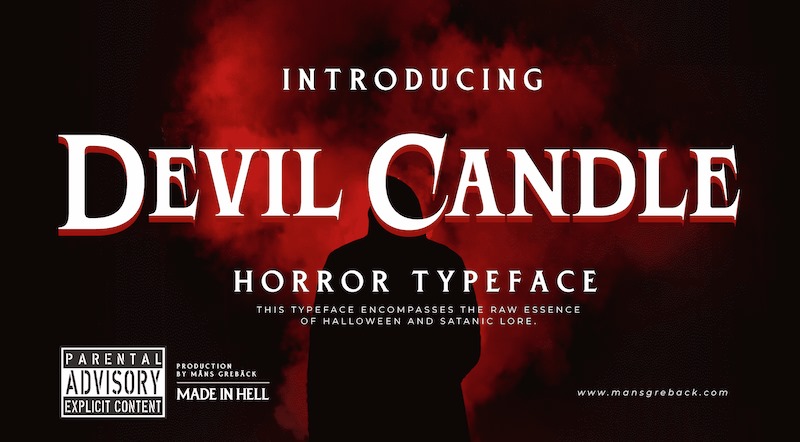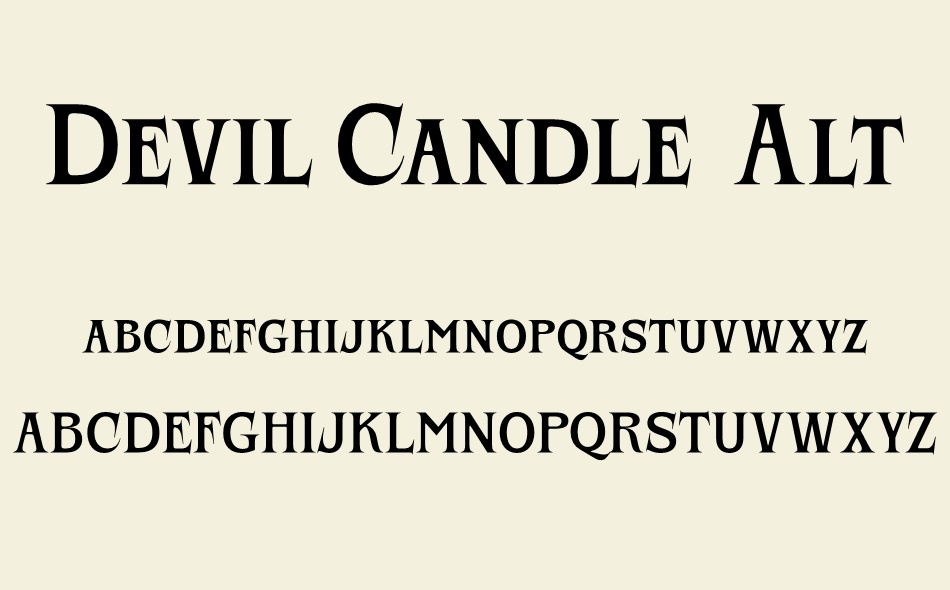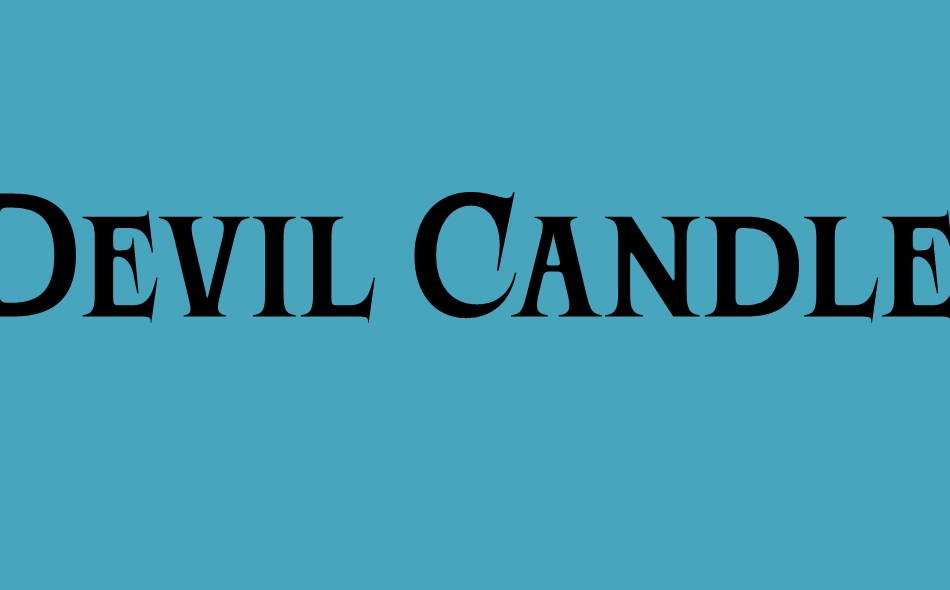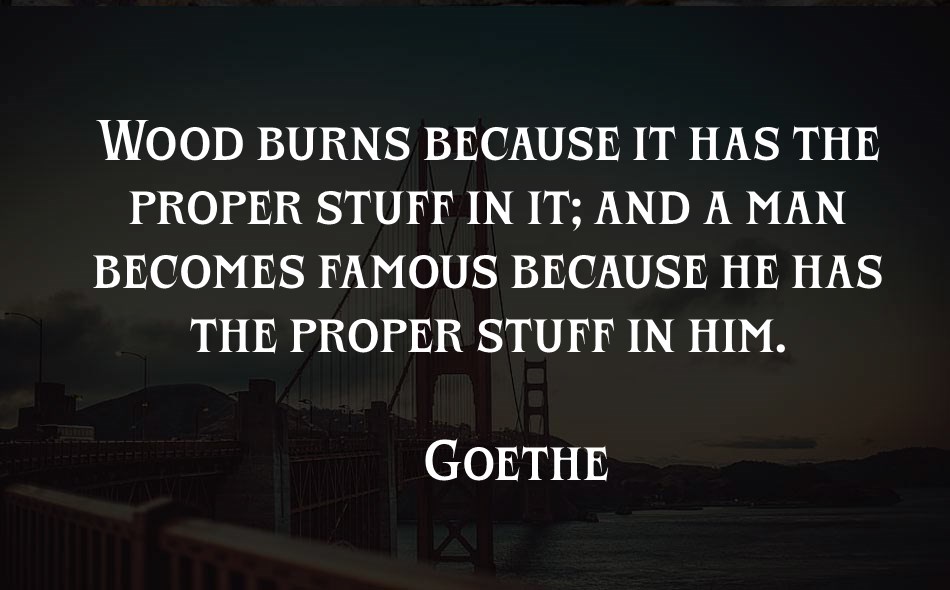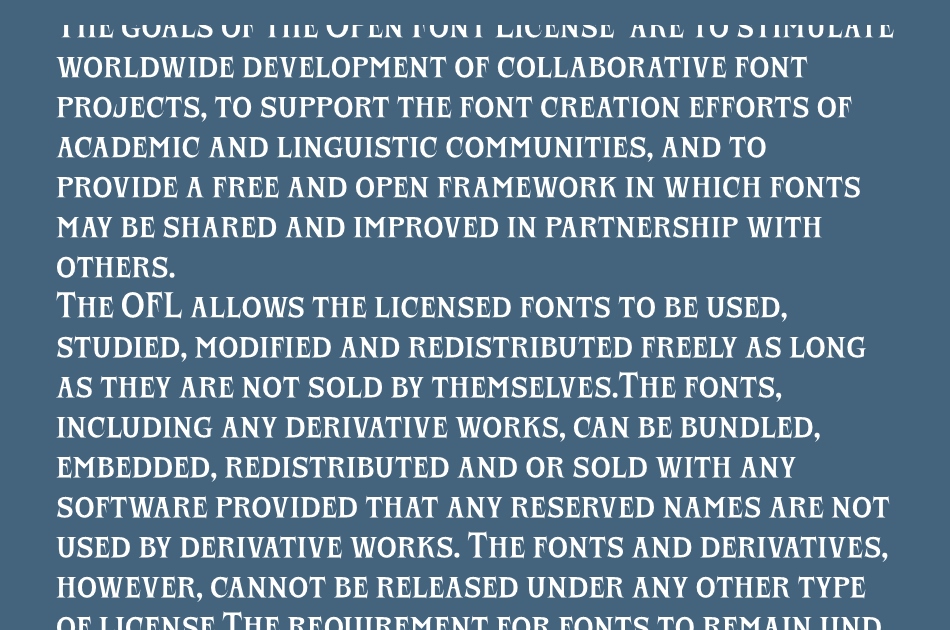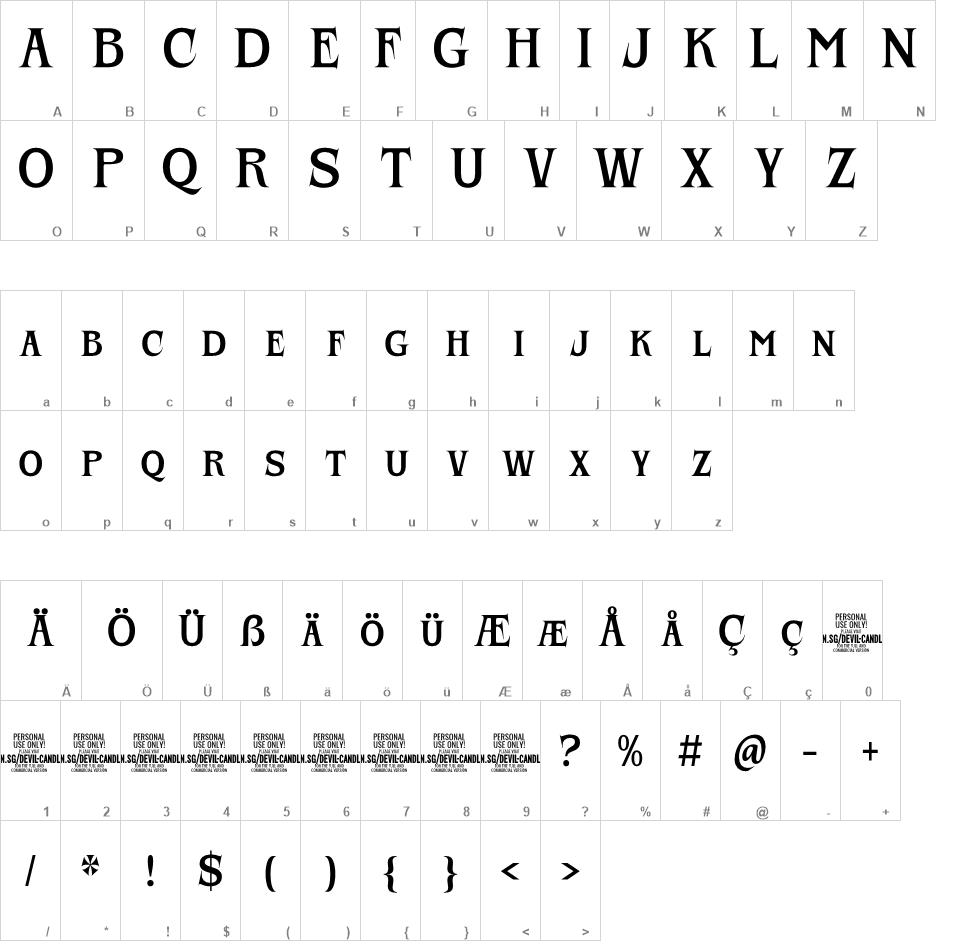
Devil Candle font
Devil Candle evokes a symphony of sinister whispers, a reflection of the murky depths of hell.
Its refined serif characters, in narrow to wide stances, echo the undulating flames of a devil's candle, flickering ominously at Halloween.
Devil Candle evokes a symphony of sinister whispers, a reflection of the murky depths of hell.
Its refined serif characters, in narrow to wide stances, echo the undulating flames of a devil's candle, flickering ominously in the abyss.
Ideal for the bone-chilling narratives of horror movies, this typeface encompasses the raw essence of Halloween and satanic lore, effectively encapsulating the pulse of terror that courses through the veins of the enchanted and the damned.
The font is built with advanced OpenType functionality and has a guaranteed top-notch quality, containing stylistic and contextual alternates, ligatures, and more features; all to give you full control and customizability. It has extensive lingual support, covering all Latin-based languages, from Northern Europe to South Africa, from America to South-East Asia. It contains all characters and symbols you'll ever need, including all punctuation and numbers.
Mans Greback, an artisan of letters, adds another gem to his collection with Devil Candle. This typeface reaffirms Greback's knack for breathing life into characters that transcend mere alphabets, crafting narratives that resonate with aficionados of the genre.